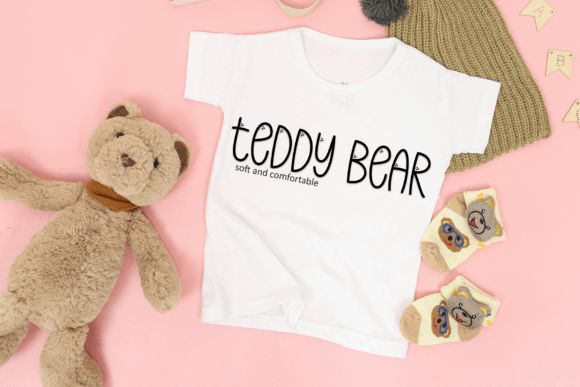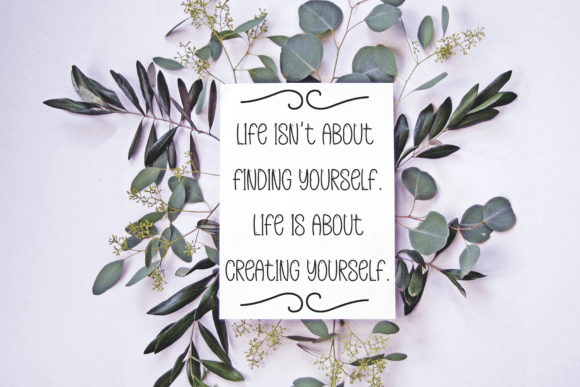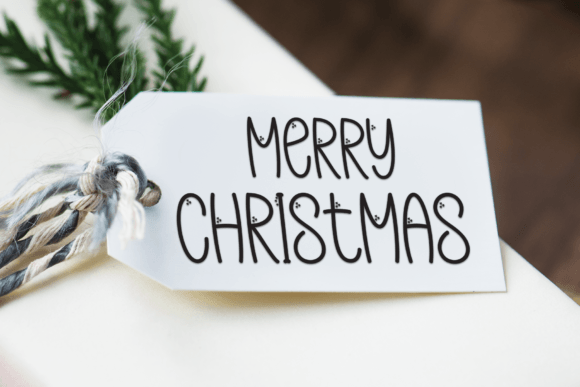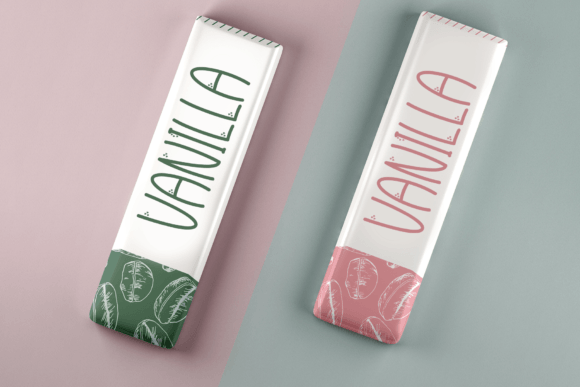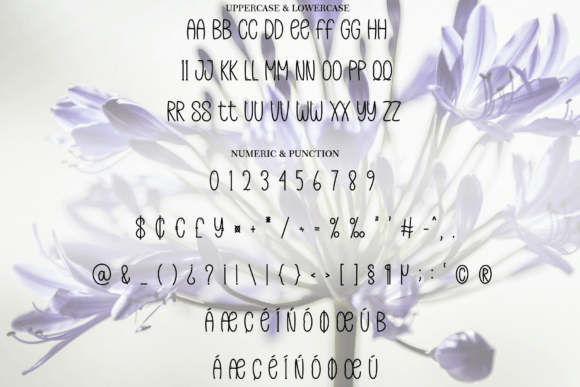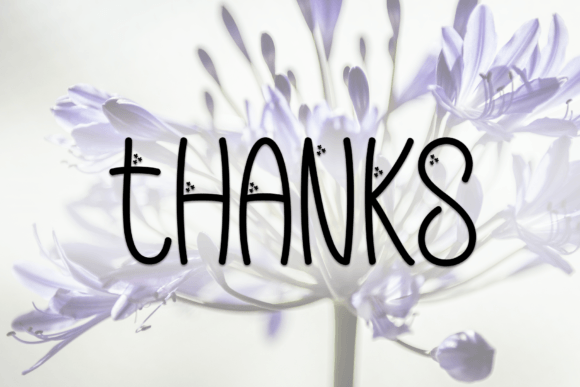
Introducing Agapanthus Font: The Sweet and Friendly Handwritten Font for Your Design Needs
Are you looking for a font that can add a touch of sweetness and friendliness to your designs? Look no further than Agapanthus Font! This beautiful handwritten font is perfect for creating wedding invitations, cards, and other designs that require a fun and playful touch. In this article, we’ll take a closer look at Agapanthus Font and explore its features, benefits, and uses.
What is Agapanthus Font?
Agapanthus Font is a modern handwritten font that is designed to be fresh, cute, and engaging. Its sweet and friendly appearance makes it perfect for a wide range of design projects, from wedding invitations and cards to social media graphics and blog posts. The font is carefully crafted to create a sense of warmth and approachability, making it ideal for designers and crafters who want to add a personal touch to their work.
Key Features of Agapanthus Font
So, what makes Agapanthus Font so special? Here are some of its key features:
- Handwritten appearance: Agapanthus Font has a beautiful handwritten appearance that is both sweet and friendly.
- Fresh and cute: The font is designed to be fresh and cute, making it perfect for designs that require a playful touch.
- Versatile: Agapanthus Font is versatile and can be used for a wide range of design projects, from wedding invitations to social media graphics.
- Easy to read: The font is carefully crafted to be easy to read, making it perfect for body text and headings.
Benefits of Using Agapanthus Font
So, why should you use Agapanthus Font in your designs? Here are some of its benefits:
- Adds a personal touch: Agapanthus Font adds a personal touch to your designs, making them more engaging and relatable.
- Perfect for wedding designs: The font is ideal for wedding invitations, cards, and other wedding-related designs.
- Great for social media graphics: Agapanthus Font is perfect for social media graphics, blog posts, and other online content.
- Easy to pair with other fonts: The font is easy to pair with other fonts, making it versatile and flexible.
Uses of Agapanthus Font
Agapanthus Font is a versatile font that can be used for a wide range of design projects. Here are some of its uses:
- Wedding invitations: The font is perfect for wedding invitations, save-the-date cards, and other wedding-related designs.
- Cards and stationery: Agapanthus Font is great for creating cards, stationery, and other paper crafts.
- Social media graphics: The font is perfect for social media graphics, blog posts, and other online content.
- Signs and posters: Agapanthus Font can be used for signs, posters, and other display graphics.
Tips for Using Agapanthus Font
Here are some tips for using Agapanthus Font in your designs:
- Use it for headings and titles: Agapanthus Font is perfect for headings and titles, where its sweet and friendly appearance can shine.
- Pair it with other fonts: The font is easy to pair with other fonts, making it versatile and flexible.
- Experiment with colors and textures: Agapanthus Font looks great with a range of colors and textures, so don’t be afraid to experiment.
Agapanthus Font is a sweet and friendly handwritten font that is perfect for adding a touch of warmth and approachability to your designs. Its fresh and cute appearance makes it ideal for wedding invitations, cards, and other designs that require a fun and playful touch. With its versatility, ease of use, and range of benefits, Agapanthus Font is a must-have for designers and crafters looking to add a personal touch to their work.